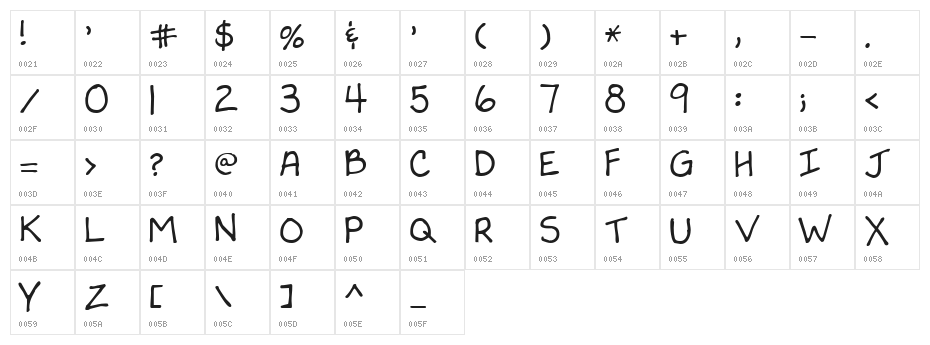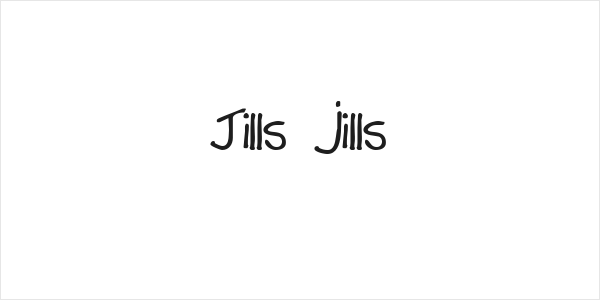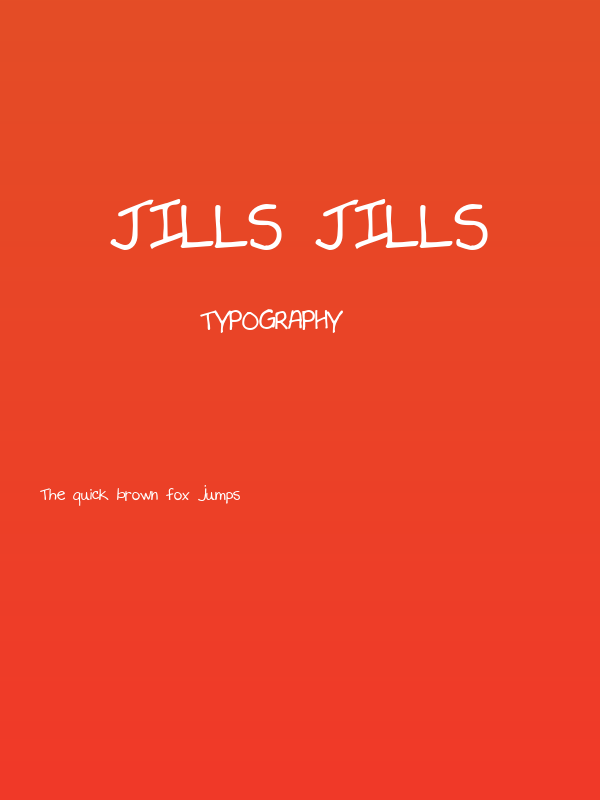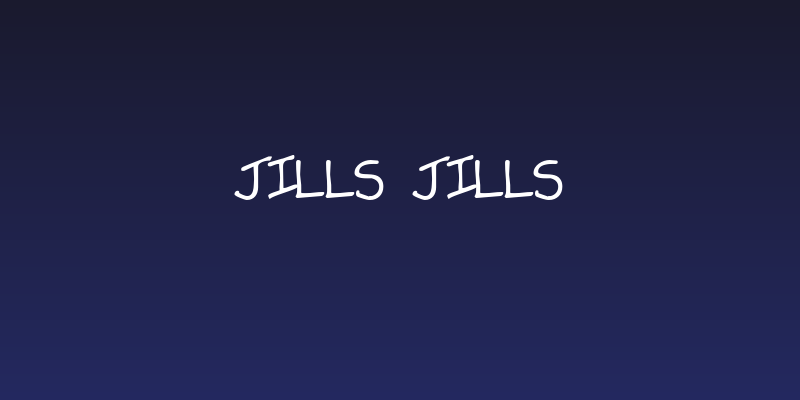
Jills jills Font
Jills jills Description
This font features a playful and casual handwritten style, characterized by its irregular and slightly whimsical letterforms. The strokes are uneven, giving it a natural and organic feel, reminiscent of a personal note or doodle. The uppercase and lowercase letters maintain a consistent style, with rounded edges and a slightly tilted appearance, adding to its informal charm. The numerals and special characters follow the same aesthetic, ensuring a cohesive look across all glyphs. This font exudes a friendly and approachable vibe, making it suitable for projects that require a touch of personality and warmth.
Overall StyleCasual
Use CaseHeadlines, Informal text, Personal projects
Proposed ProjectsIdeal for greeting cards, children's books, personal blogs, and informal branding.